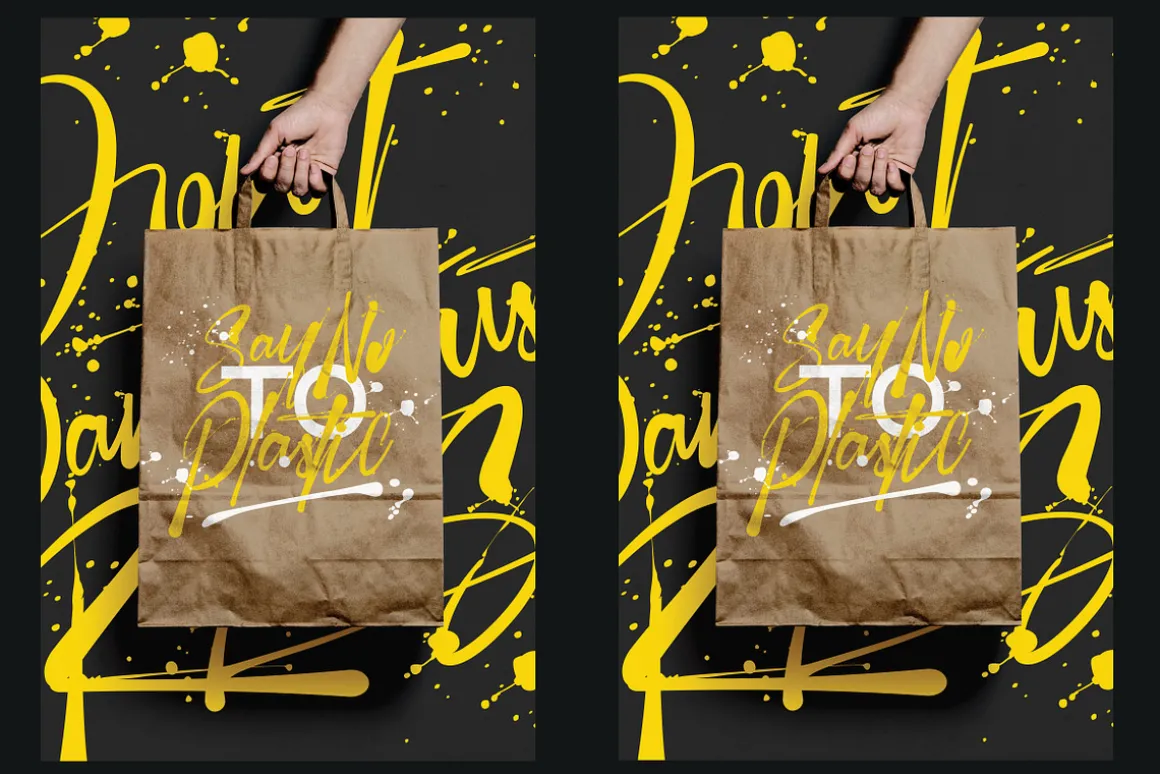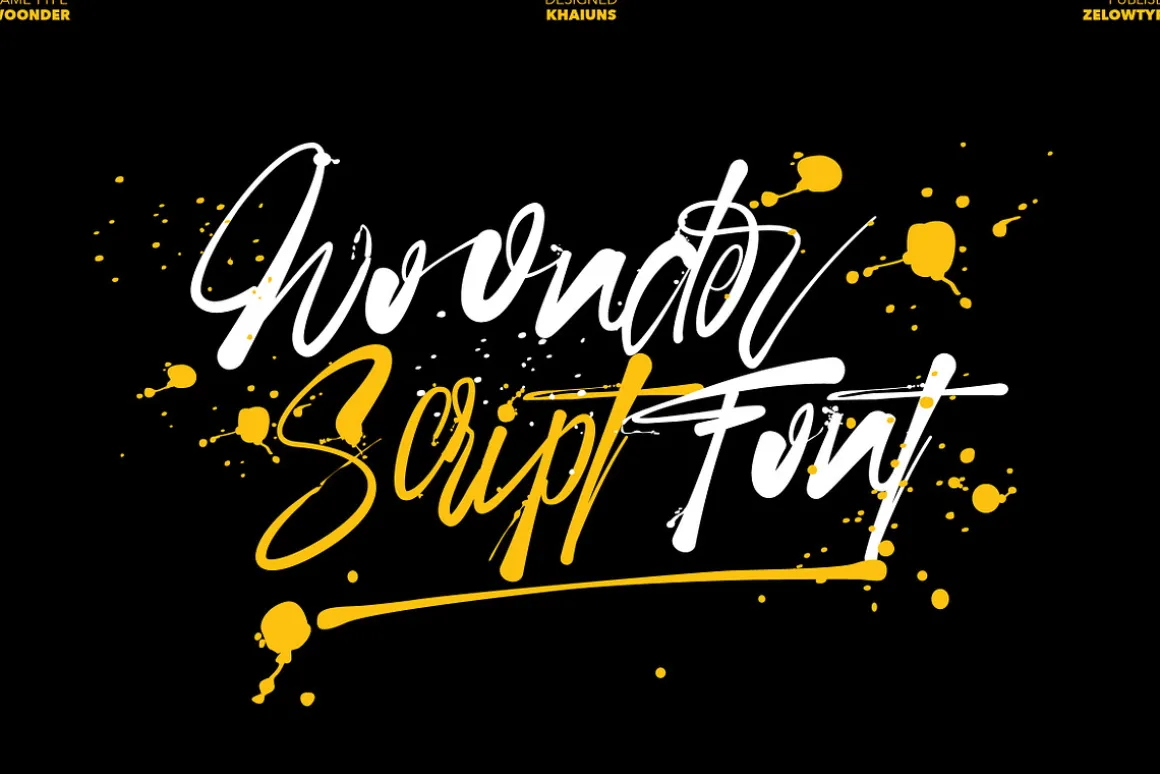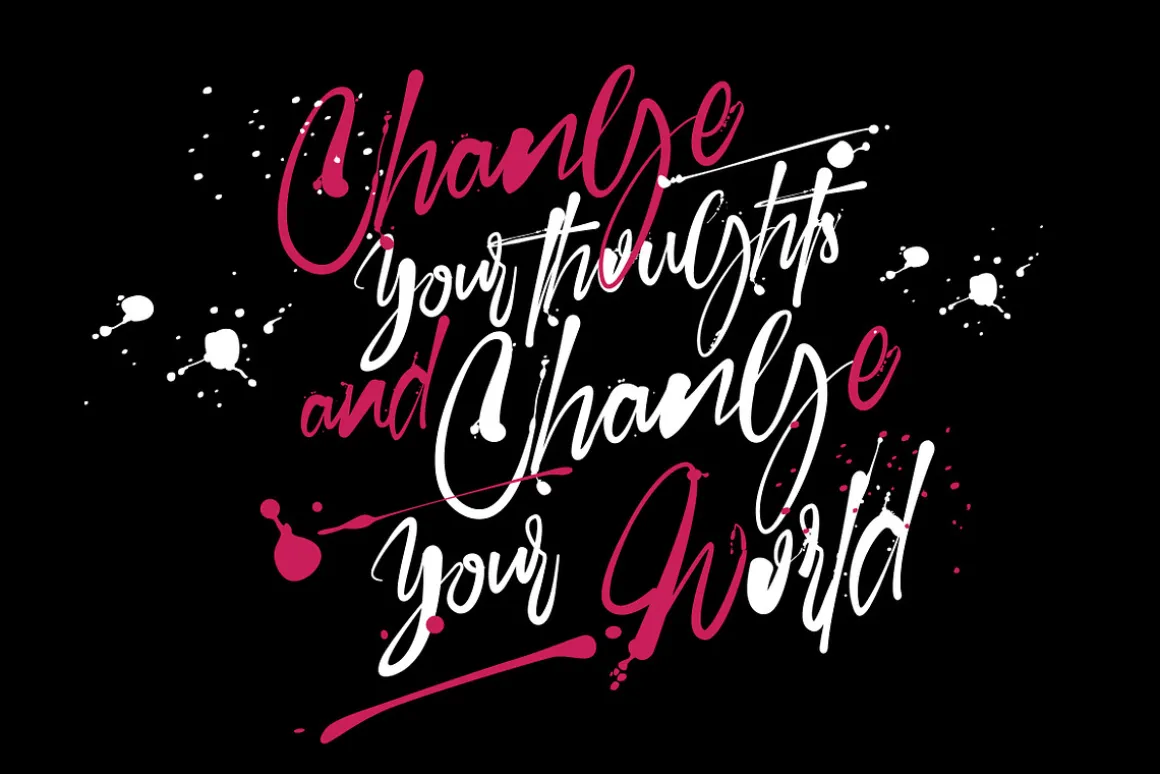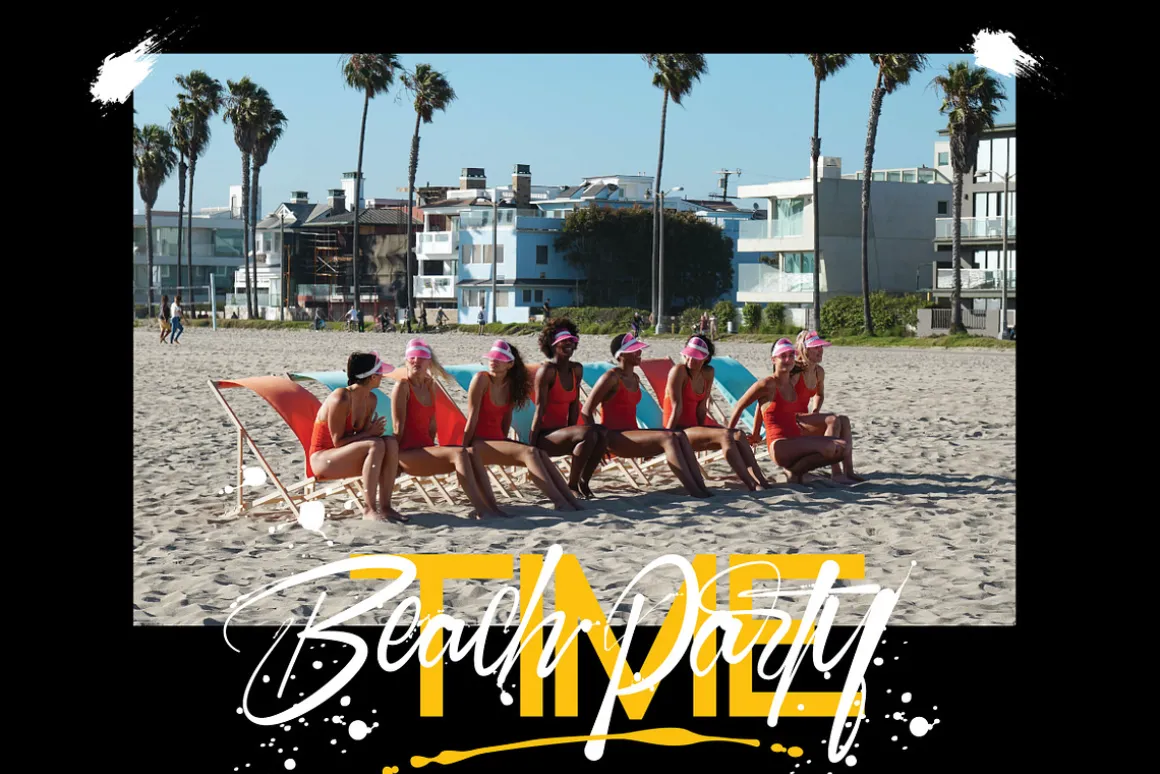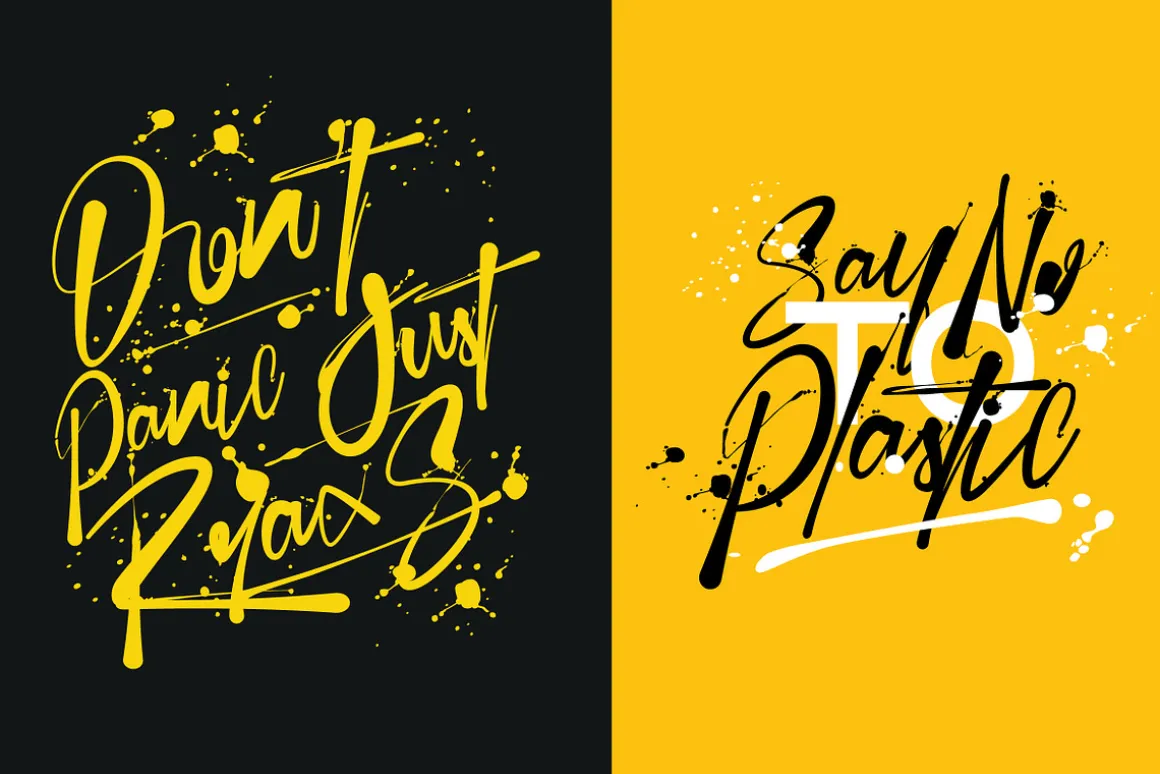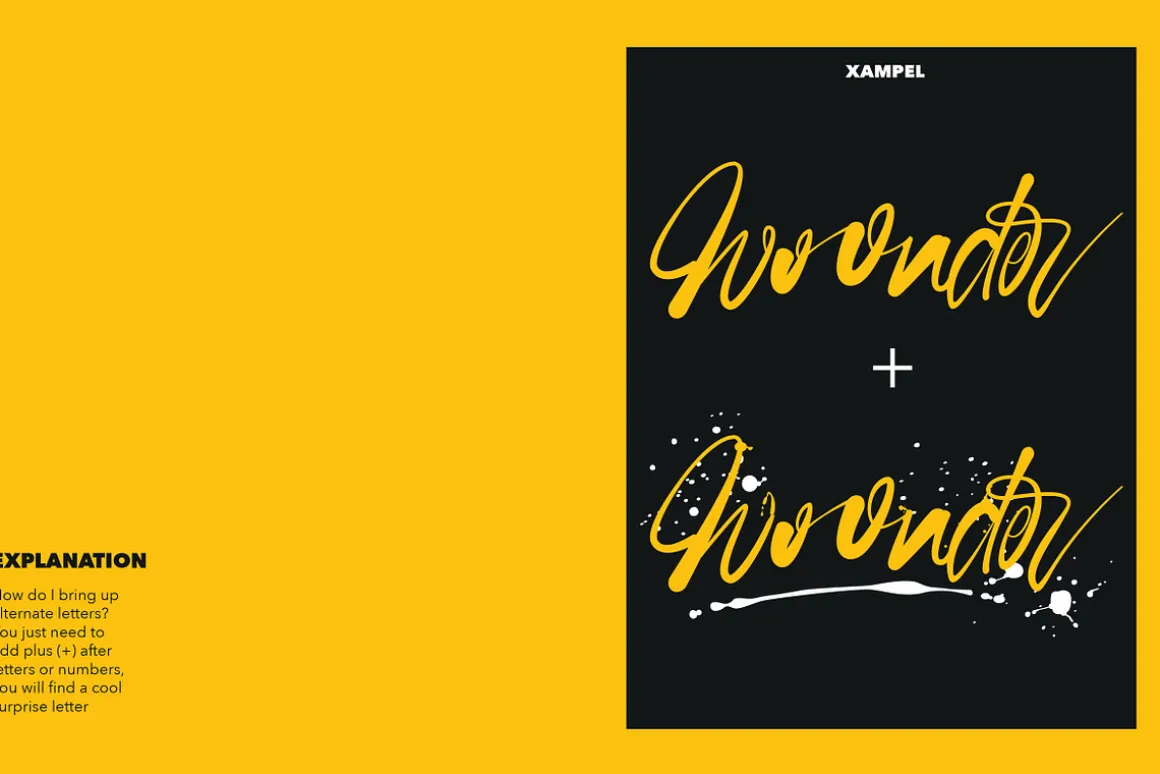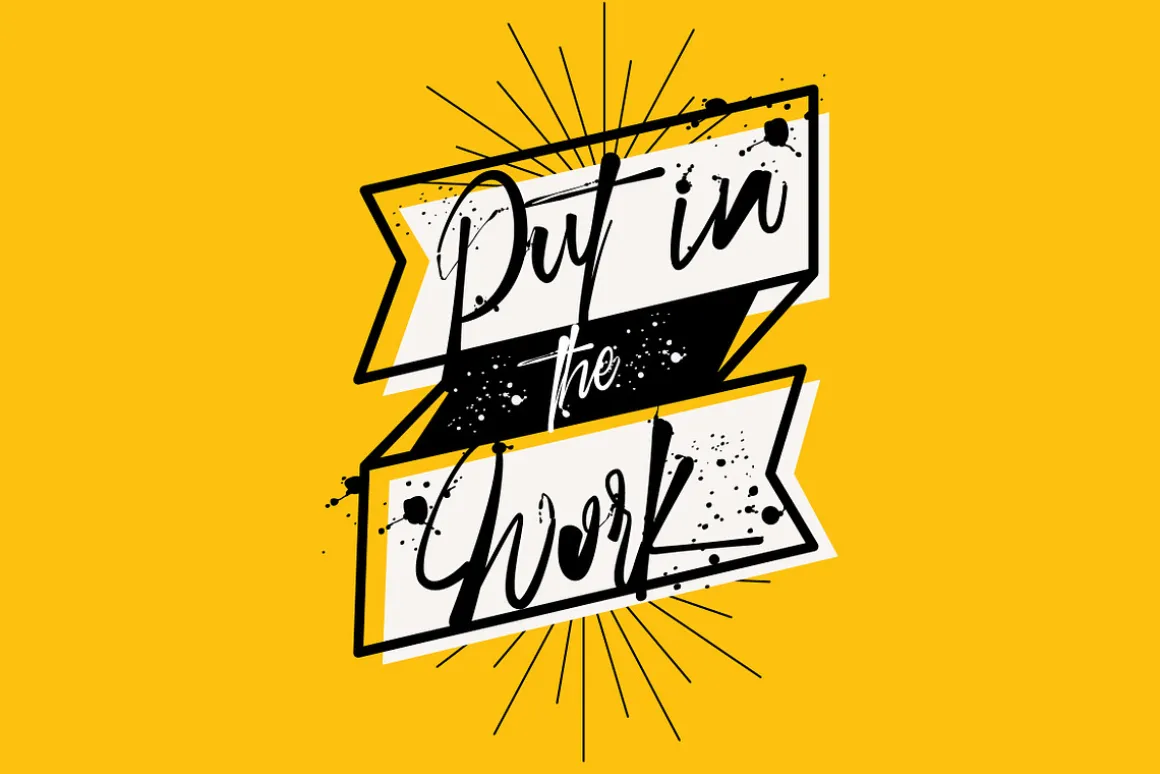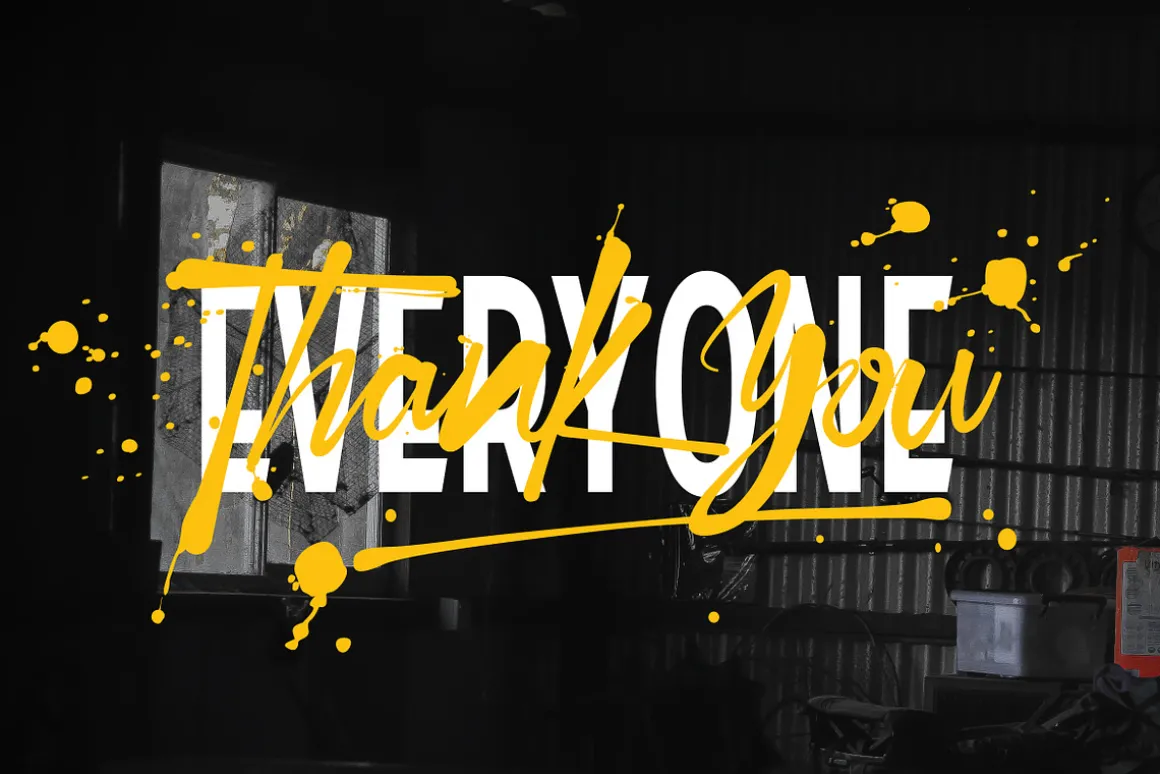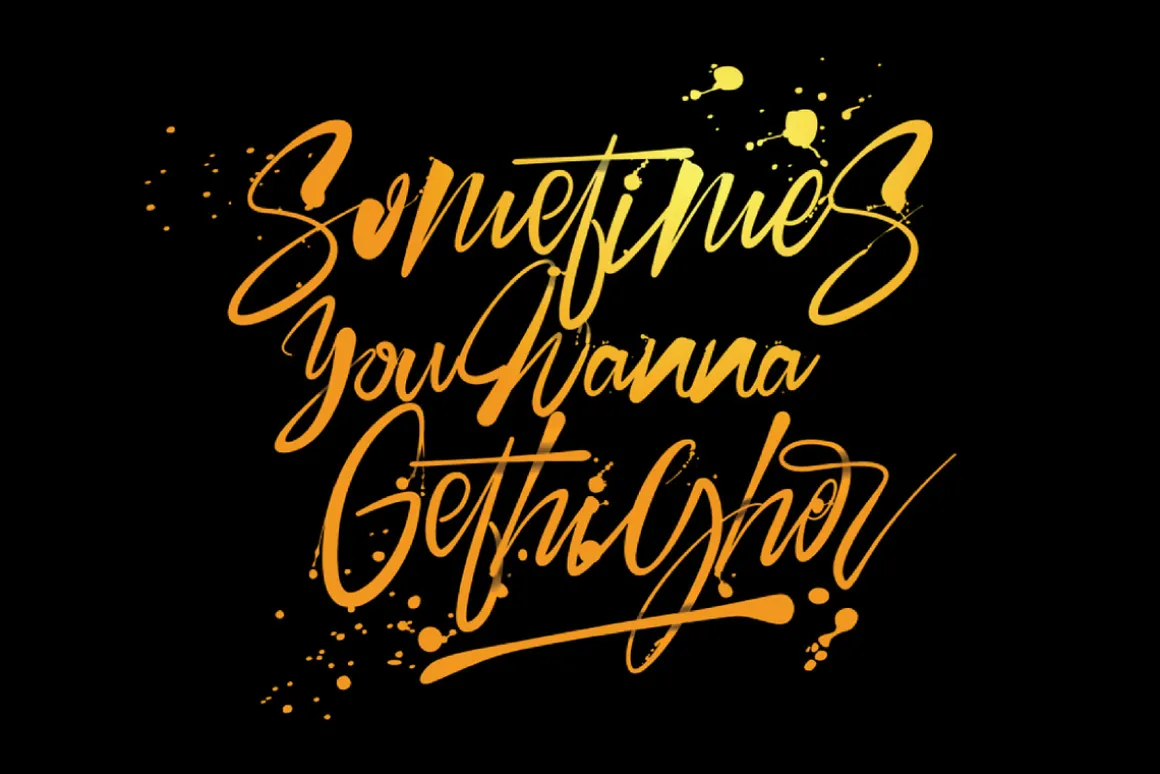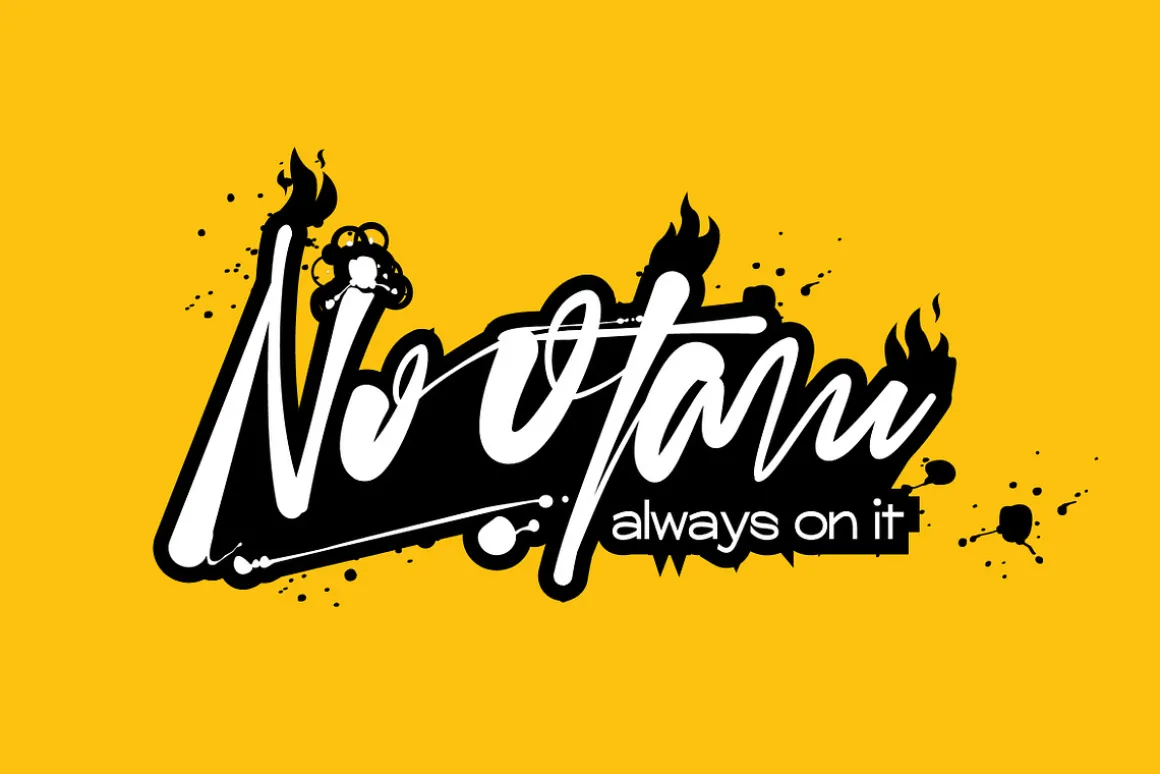
Woonder Script Fonts, a handcrafted brush font! This bold, free-flowing, confident brush font is designed to be easily customized to your liking with 2 letter sets, also featuring swashes and some unique textures. Find a unique Woonder Script Font by adding a plus (+) to each letter and number and you’ll have a cool letter.
Woonder Script Fonts is a brush font which you can use and enjoy again and again, for anything from promotional material and handwritten quotes, to product packaging, merchandise and branding projects.